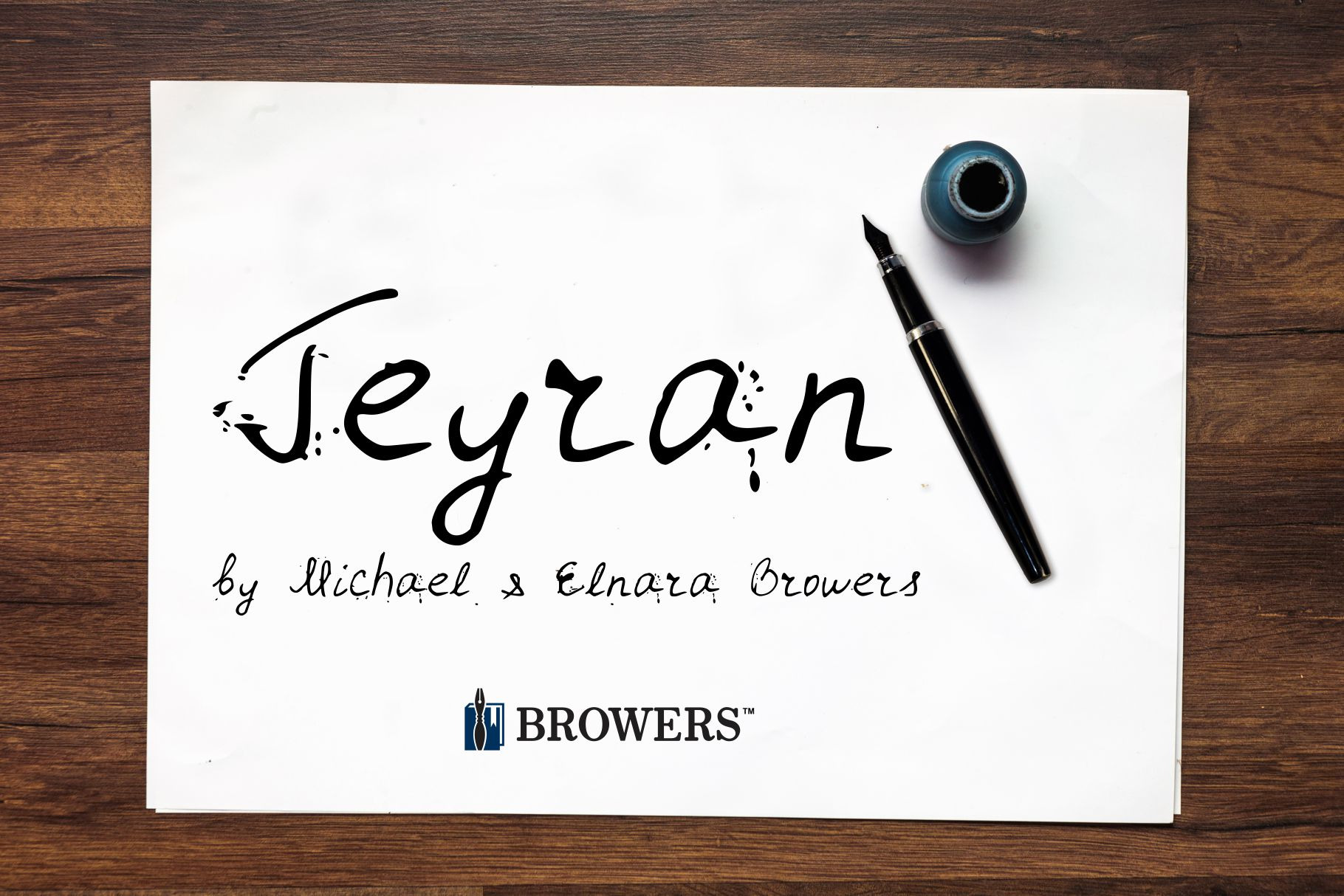
Jeyran Font
Jeyran is a handwriting font co-developed by Elnara Browers and Michael Browers.
Based on Elnara Browers' handwriting, Jeyran is her first font design.
Elnara’s fluency in multiple languages facilitated the development of an extended character set that includes both Latin and Cyrillic.